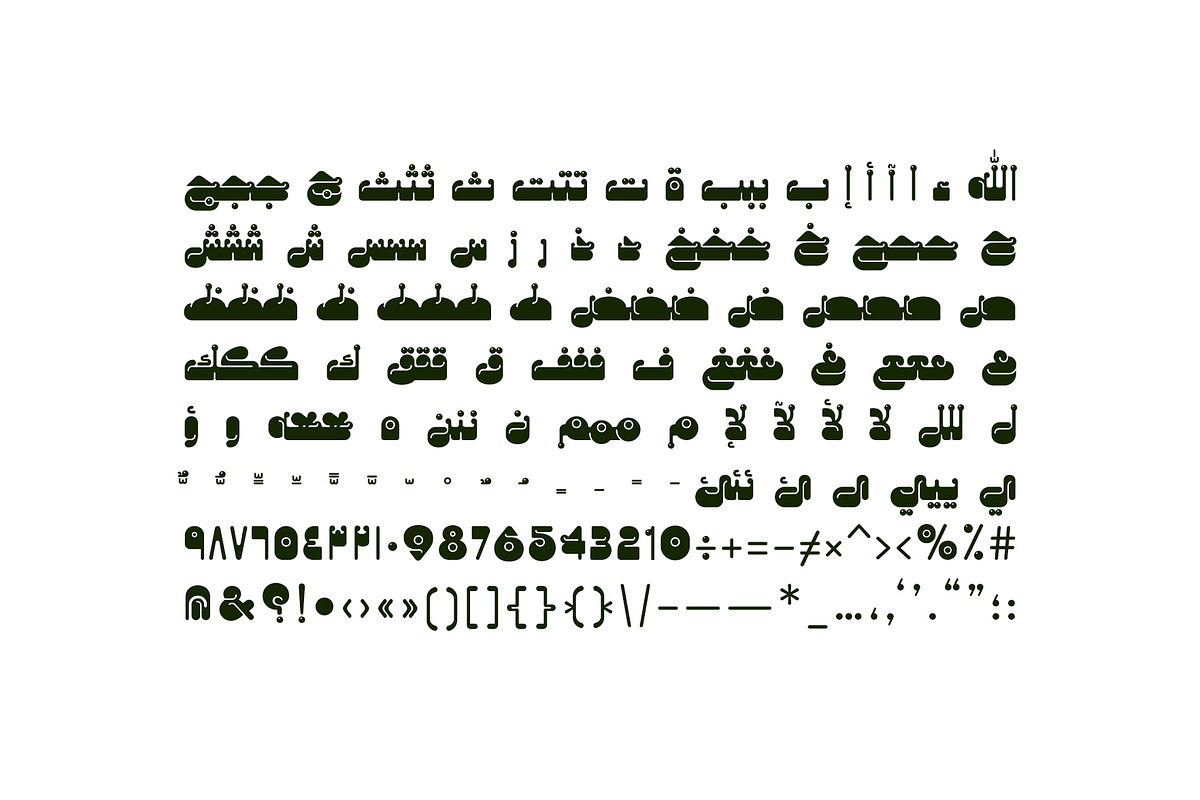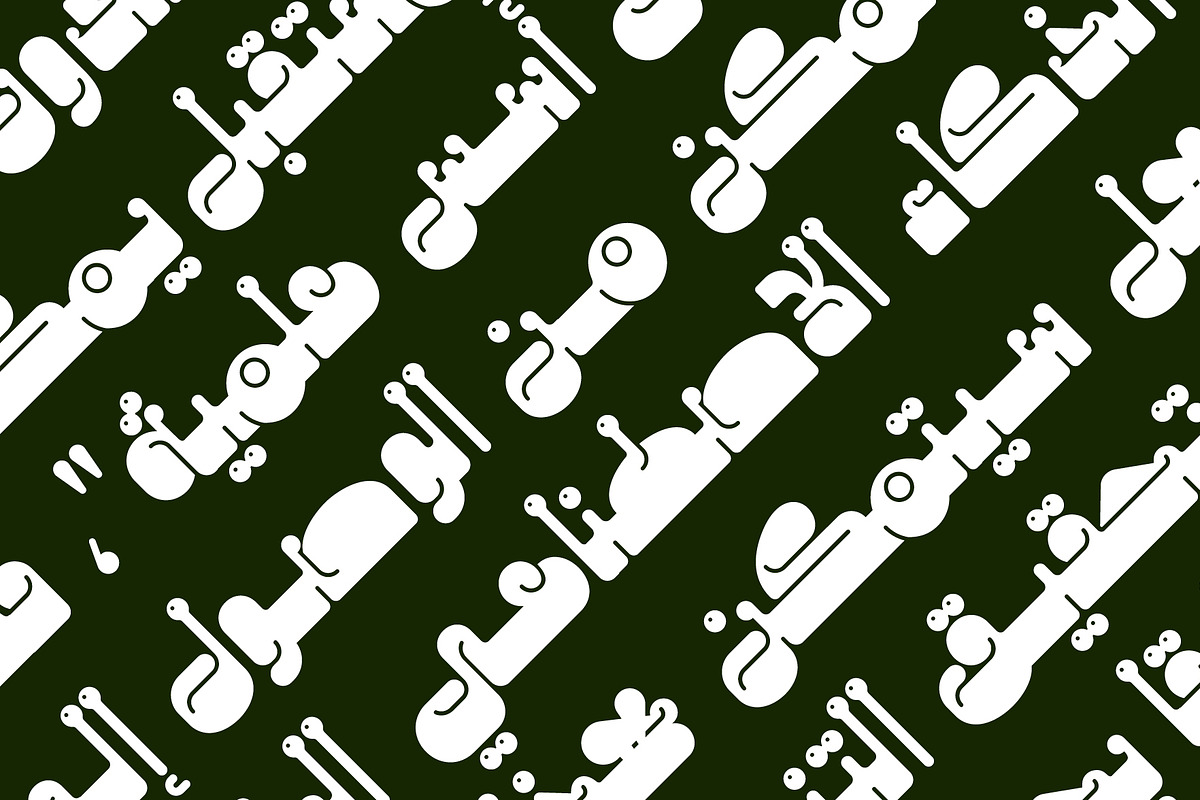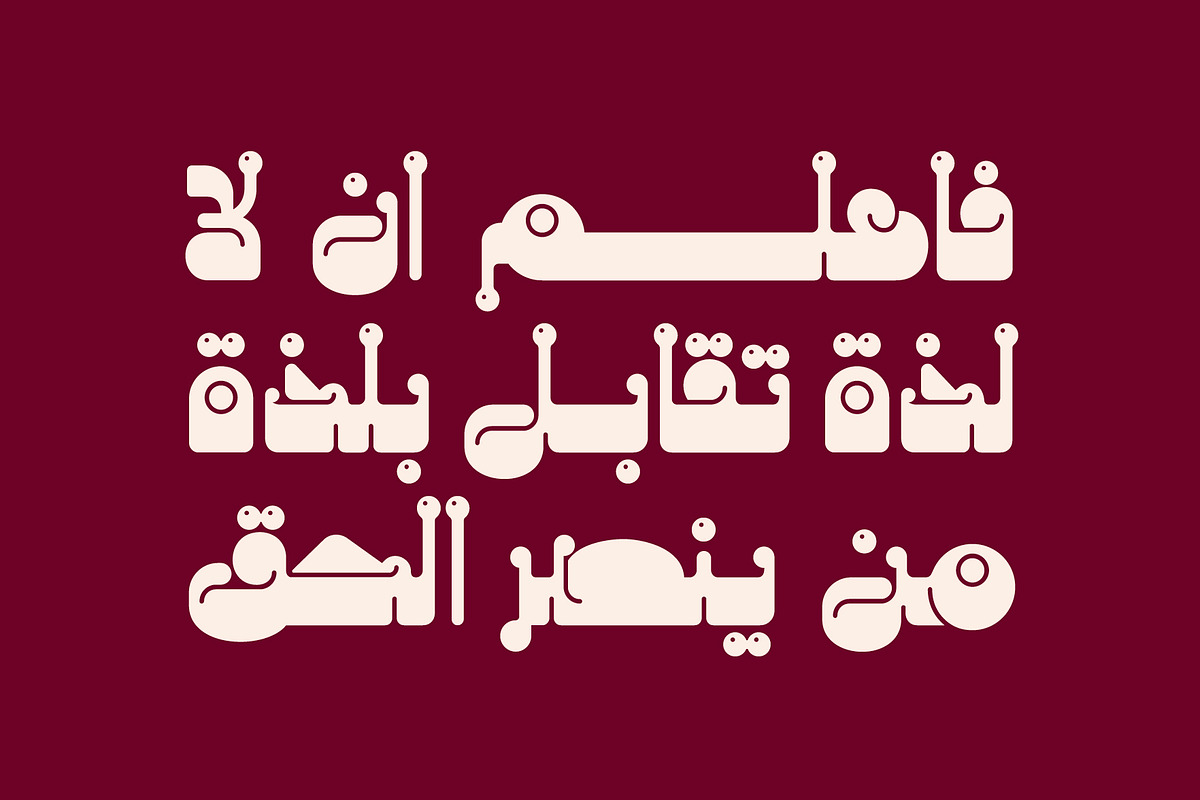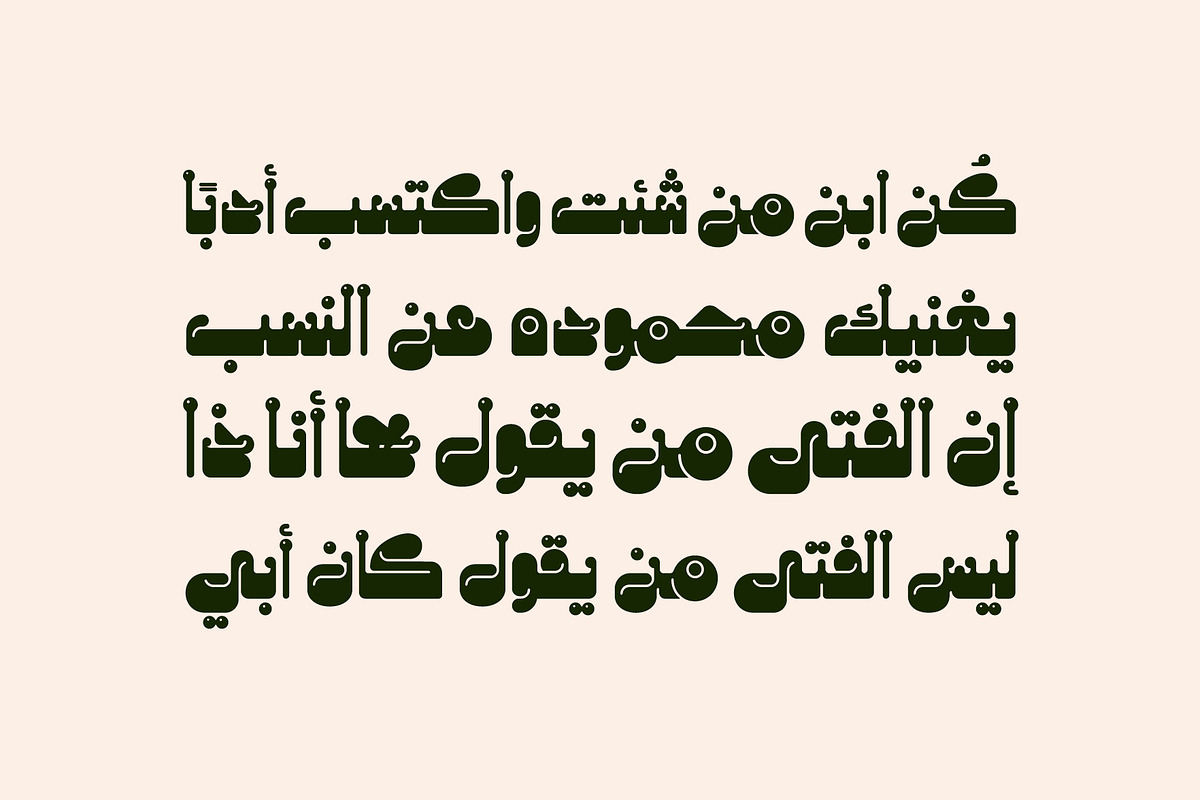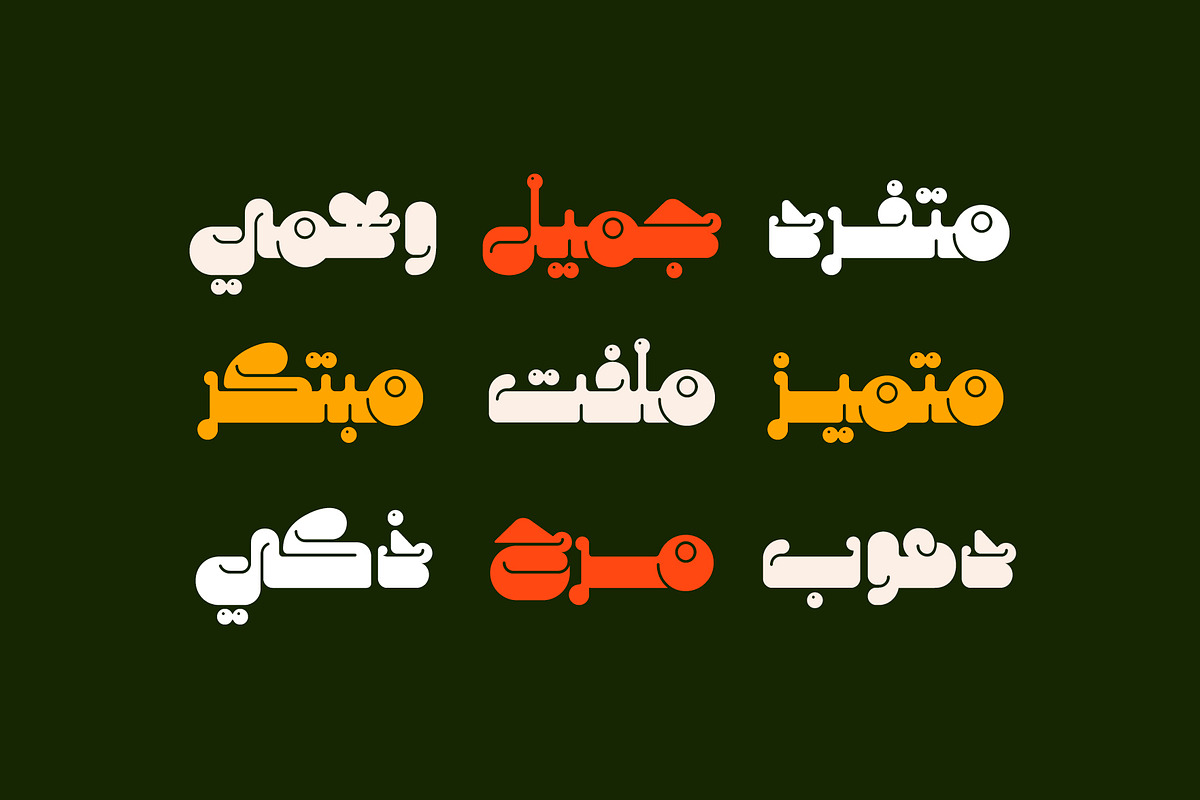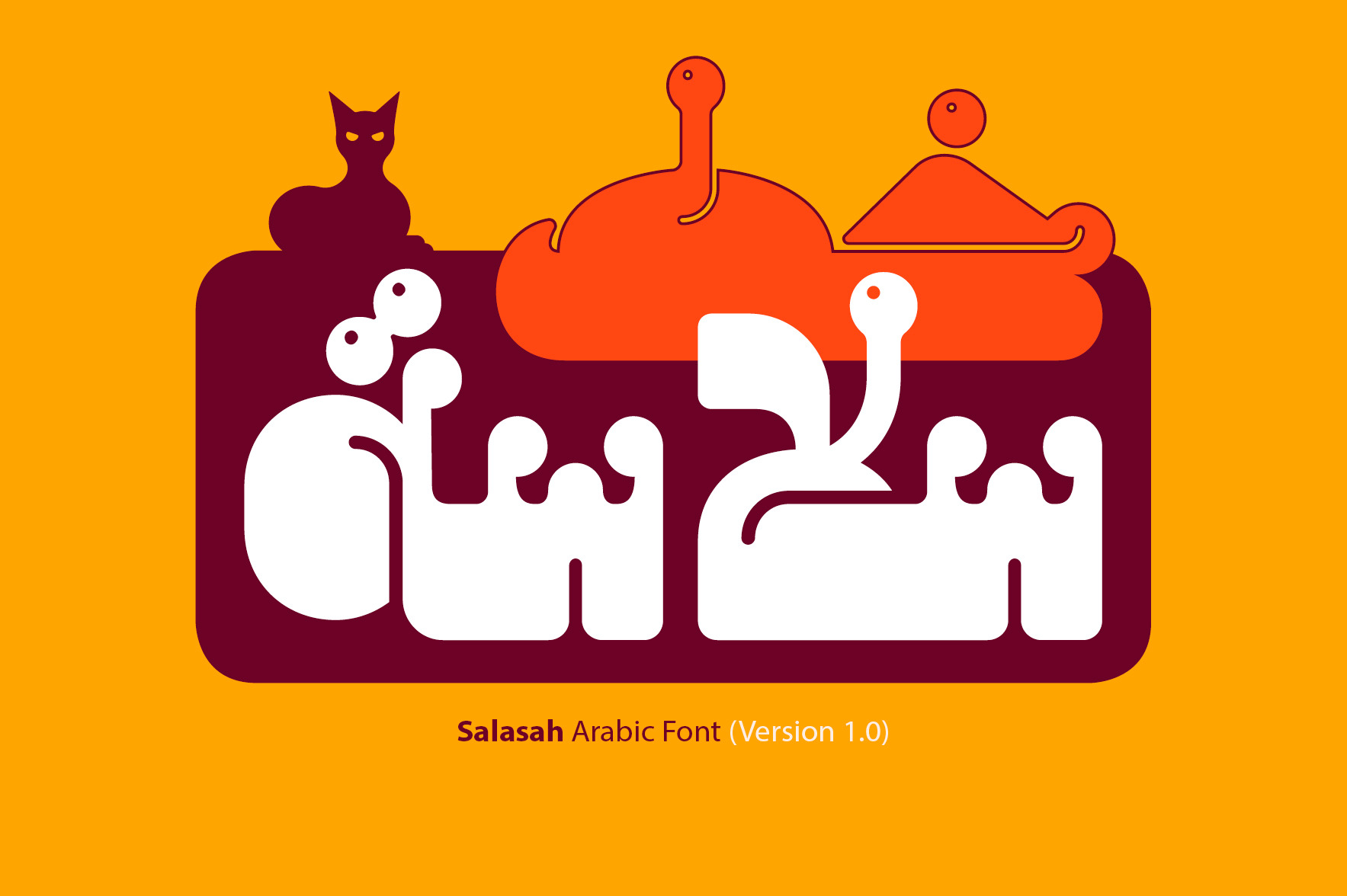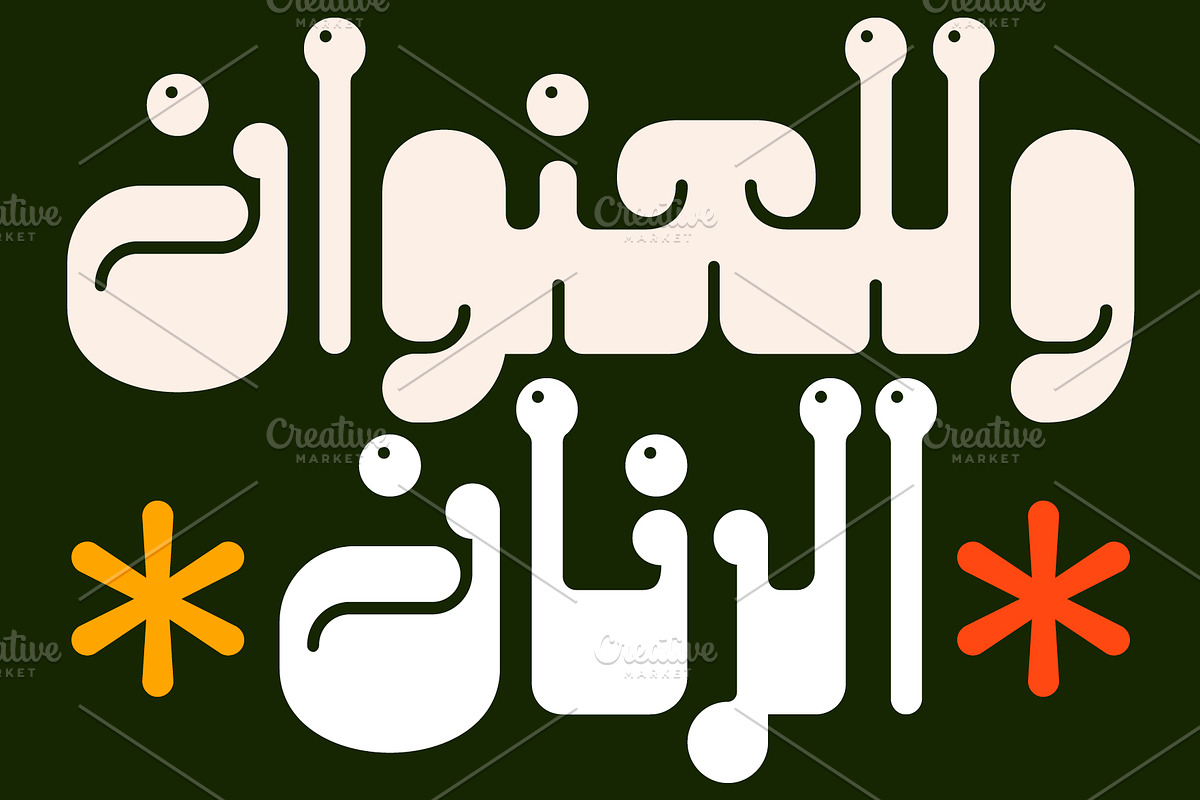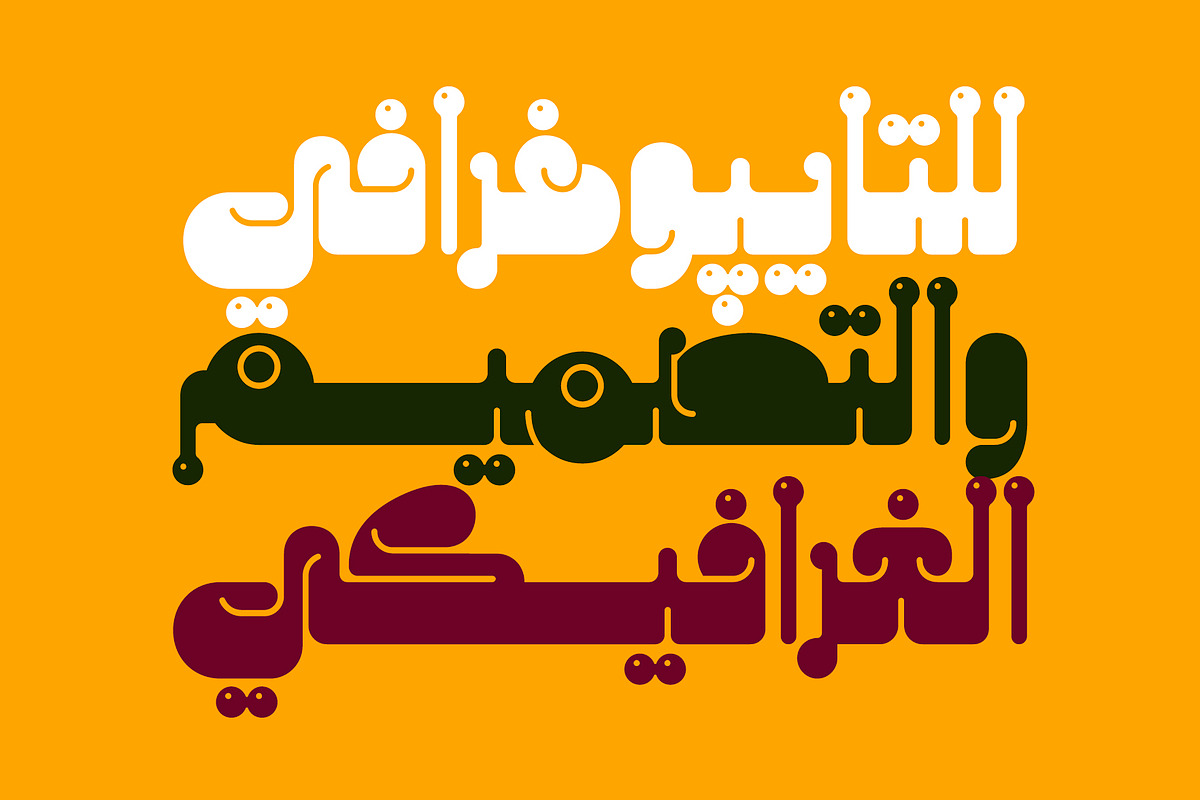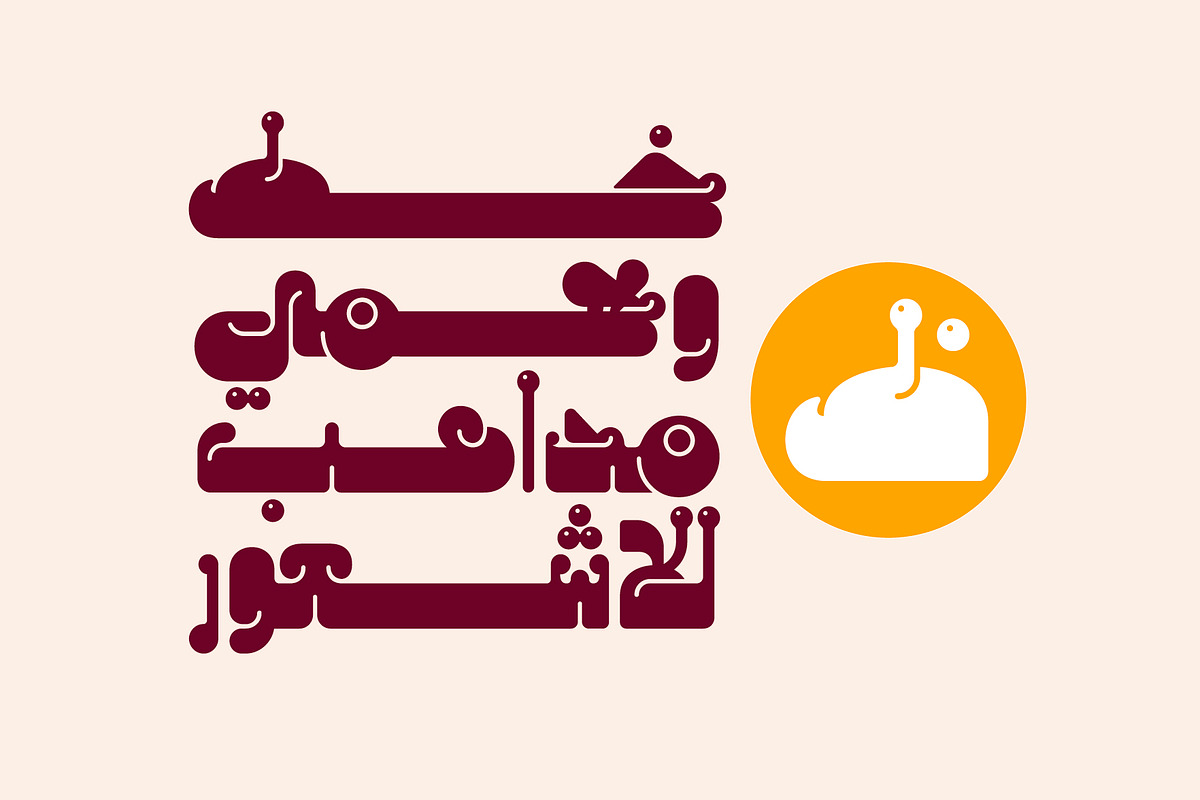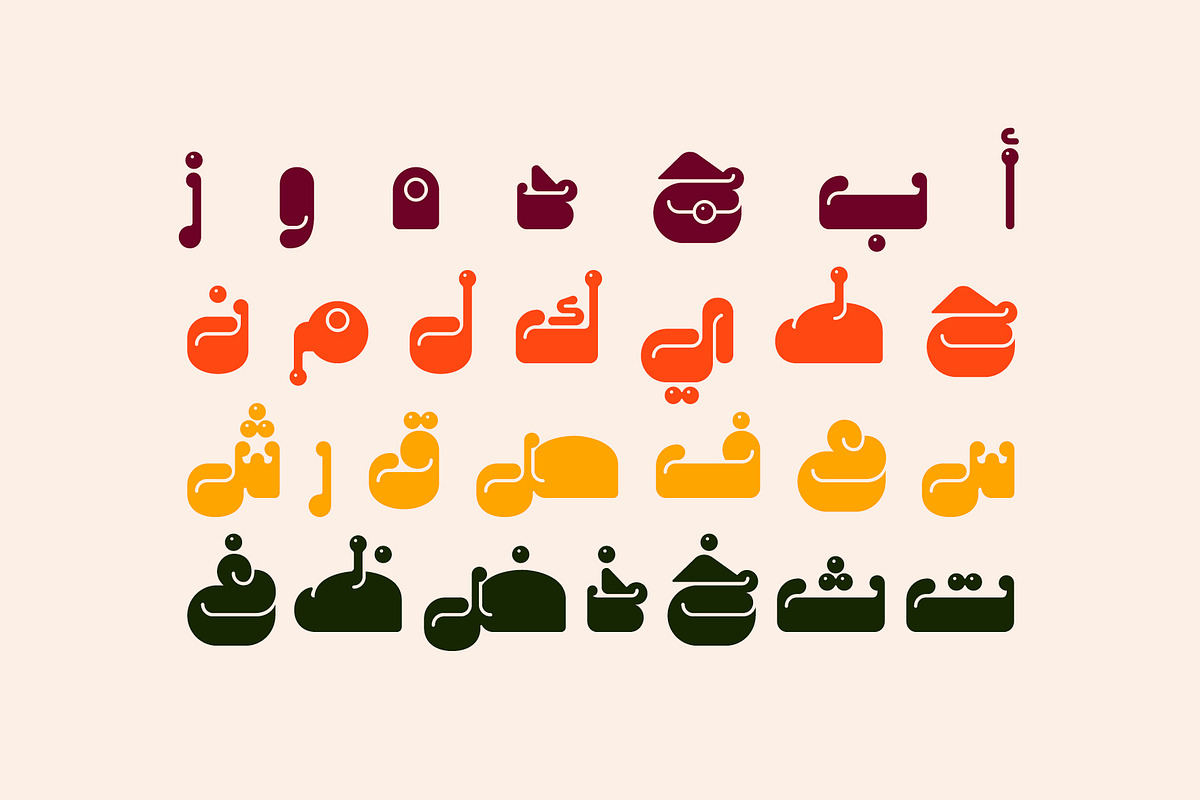
Salasah - Arabic Font
Salasah (the Arabic for 'Glibness') is an Arabic display font that features unique and extraordinary letterform structure. The font is suitable for contemporary design projects including web, print, branding and advertising. Salasah supports Windows, macOS and mobile applications.